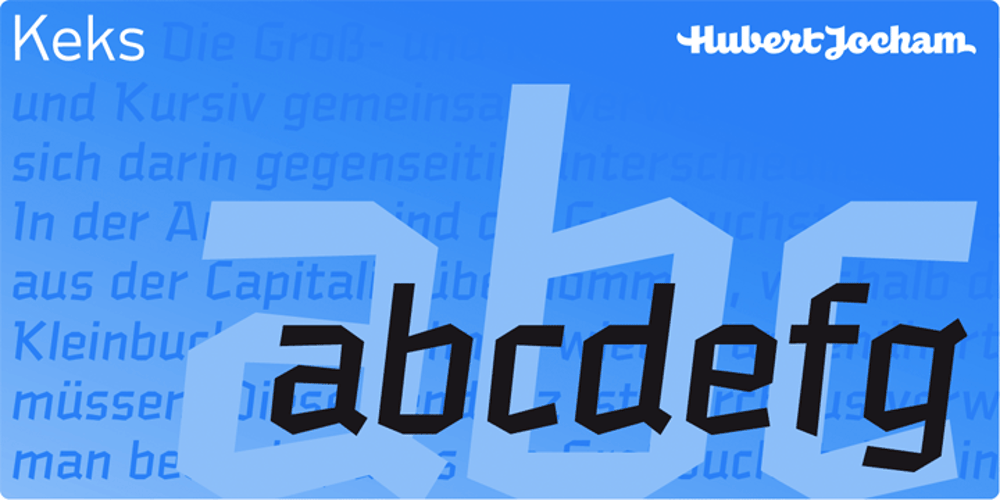
Keks Font Family was designed by Hubert Jocham and published by Hubert Jocham Type. Keks contains 7 styles and family package options. And now something completely different. Keks has broken elements like a blackletter typeface, but the actual forms are roman. That keeps it very legible although there is no curve at all. What was the inspiration for designing the font? Blackletter has an interesting history here in Germany. We need to find contemporary interpretations for this tradition. What are its main characteristics and features? Legible roman blackletter Usage recommendations: any usage that needs a black letter athmosphere where legibility is important.